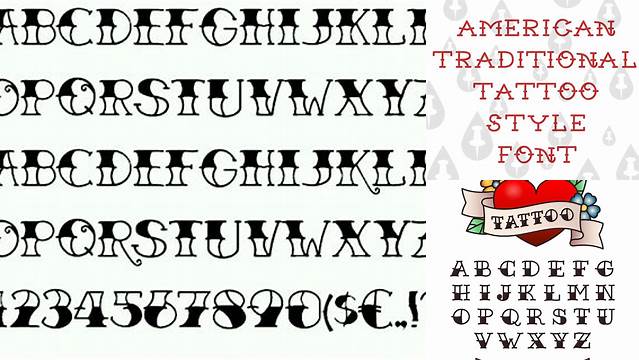
Free American Traditional Tattoo Font Generator
Are you on the hunt for the perfect American Traditional tattoo font generator free of charge? Look no further! In this comprehensive guide, we'll explore everything you need to know about American Traditional tattoo fonts, how to find them, and how to use them to create stunning designs. Whether you're a tattoo artist looking for inspiration or someone planning their first tattoo, understanding the nuances of this classic style is crucial.
What is American Traditional Tattoo Font?
American Traditional tattoo fonts, often referred to as classic tattoo fonts, are characterized by their bold lines, clean readability, and timeless appeal. Rooted in the early 20th-century American tattooing style, these fonts were designed for clarity and longevity. Think of iconic tattoo artists like Sailor Jerry, whose work heavily influenced the aesthetics we associate with this style today. These fonts are more than just lettering; they're a statement. They evoke a sense of history, resilience, and a no-nonsense attitude. The simplicity in their design ensures they age well, remaining legible even as the ink settles and the skin changes over time. This enduring quality is a key reason why American Traditional fonts continue to be a popular choice in tattoo parlors worldwide. When choosing a font, consider its weight and spacing, as these factors significantly impact the overall look and feel of your tattoo. A well-chosen font can enhance the impact of your design, while a poorly chosen one can detract from it. Also, bear in mind the placement of the tattoo on your body. Certain fonts may work better on larger areas like the back or chest, while others are more suitable for smaller areas like the wrist or ankle. Experiment with different font styles and sizes to find the perfect match for your vision. Remember, a tattoo is a permanent commitment, so it's essential to get it right. Take your time, do your research, and consult with your tattoo artist to ensure you're making the best possible choice. Ultimately, the goal is to create a tattoo that you'll be proud to wear for years to come.
Key Characteristics of American Traditional Fonts
When diving into the world of American Traditional tattoo fonts, it’s essential to recognize the key characteristics that define them. Typically, these fonts feature strong, clean lines that ensure readability and longevity. Boldness is a signature element, making the lettering stand out and resist fading over time. You'll often find these fonts using a limited color palette, primarily black, red, and occasionally green or yellow, further emphasizing their bold nature. Another defining trait is the simplicity of the letterforms. Unlike more ornate or decorative fonts, American Traditional fonts prioritize clarity and directness. This simplicity allows the lettering to be easily understood, even from a distance, which is crucial for tattoos that need to make a statement. Furthermore, spacing is carefully considered in these fonts. The letters are typically spaced generously to prevent them from blurring together as the tattoo ages. This attention to detail ensures that the tattoo remains legible and visually appealing for years to come. In addition to these fundamental characteristics, American Traditional fonts often incorporate subtle design elements that add to their overall aesthetic. These can include slight serifs, rounded edges, or decorative flourishes that enhance the visual appeal of the lettering without compromising its readability. The specific design elements used can vary depending on the font and the artist's personal style, but they all contribute to the unique character of American Traditional fonts. Understanding these key characteristics is essential for anyone looking to incorporate American Traditional lettering into their tattoo design. By appreciating the boldness, simplicity, and attention to detail that define these fonts, you can ensure that your tattoo is both visually striking and timeless. Whether you're choosing a font for a name, a quote, or a meaningful symbol, American Traditional fonts offer a classic and enduring option that will stand the test of time. Remember to consult with your tattoo artist to discuss your options and ensure that the font you choose is appropriate for your design and placement.
Where to Find Free American Traditional Tattoo Font Generators
Finding a reliable American Traditional tattoo font generator free of charge might seem daunting, but numerous resources are available online. Start by exploring websites dedicated to free fonts. Many of these sites offer a variety of tattoo-inspired fonts, including those in the American Traditional style. Some popular options include DaFont, FontSpace, and Google Fonts. While Google Fonts might not be specifically geared towards tattoo fonts, it has some display fonts that might work for an American traditional style. When browsing these sites, be sure to filter your search using keywords like "tattoo," "traditional," or "vintage" to narrow down your options. Additionally, keep an eye out for fonts that are specifically labeled as being suitable for tattoo designs. Another great resource for finding free American Traditional tattoo fonts is online design communities and forums. These platforms often feature user-submitted fonts that are free to download and use. Websites like Behance and Dribbble can be excellent sources of inspiration and may lead you to discover unique and high-quality fonts that you won't find anywhere else. Furthermore, consider checking out online tattoo forums and social media groups dedicated to tattoo art. These communities often share resources and recommendations for free fonts, as well as tips and advice on how to use them in your designs. When downloading fonts from free sources, it's essential to be mindful of licensing restrictions. Always check the font's license to ensure that you're allowed to use it for your intended purpose, whether it's for personal or commercial use. Some fonts may be free for personal use only, while others may require you to purchase a license if you plan to use them for commercial projects. By taking the time to understand the licensing terms, you can avoid any potential legal issues down the road. In addition to downloading fonts from free sources, you can also try using online font generators to create your own custom American Traditional tattoo fonts. These generators allow you to input text and customize various aspects of the font, such as its size, weight, and style. While the results may not be as polished as professionally designed fonts, they can be a great option if you're looking for something unique and personalized. Experiment with different font generators to see which one works best for you, and don't be afraid to get creative with your designs.
How to Use an American Traditional Tattoo Font Generator
So, you've found an American Traditional tattoo font generator – now what? Using these tools is generally straightforward. First, input the text you want to see rendered in the American Traditional style. This could be a name, a quote, or any other meaningful word or phrase. Next, explore the customization options offered by the generator. Most generators allow you to adjust the font size, letter spacing, and sometimes even the stroke weight. Experiment with different settings to find the perfect look for your tattoo design. Once you're satisfied with the preview, download the font file. It's usually available in a common format like TTF or OTF. After downloading the font, install it on your computer. This process typically involves double-clicking the font file and following the on-screen instructions. Once the font is installed, you can use it in any design software that supports custom fonts, such as Adobe Photoshop, Illustrator, or even Microsoft Word. Create a new document in your design software and select the American Traditional font you just installed. Type in your desired text and adjust the size and placement to match your tattoo design. If you're working with a tattoo artist, you can share the design file with them so they can accurately replicate the font on your skin. Alternatively, you can print out the design and bring it to your tattoo appointment. Before finalizing your tattoo design, it's always a good idea to test it out on a temporary tattoo or a piece of paper. This will give you a better sense of how the font will look on your skin and allow you to make any necessary adjustments. Pay attention to the size and placement of the tattoo, as well as the overall balance of the design. Remember, a tattoo is a permanent commitment, so it's essential to get it right. Take your time, experiment with different options, and consult with your tattoo artist to ensure that you're making the best possible choice. By following these steps, you can use an American Traditional tattoo font generator to create a stunning and personalized tattoo design that you'll be proud to wear for years to come. And remember, while these generators can be a great starting point, it's always a good idea to work with a professional tattoo artist to ensure that your design is executed flawlessly.
Choosing the right American Traditional tattoo font is crucial for achieving the desired aesthetic and ensuring the longevity of your tattoo. Start by considering the overall design of your tattoo. The font should complement the other elements of the design, such as images or symbols. If you're incorporating a traditional American Traditional eagle or rose, for example, choose a font that reflects the same classic and bold style. Think about the size and placement of your tattoo. Larger tattoos can accommodate more intricate fonts, while smaller tattoos require simpler, more legible fonts. Avoid fonts with overly thin lines or complex details, as these may blur or fade over time. Consider the readability of the font. Choose a font that is easy to read, even from a distance. Avoid fonts with overly stylized or decorative letterforms, as these can be difficult to decipher. Test the font out on a temporary tattoo or a piece of paper before committing to the design. This will give you a better sense of how the font will look on your skin and allow you to make any necessary adjustments. Pay attention to the spacing between the letters. The letters should be evenly spaced and not too close together or too far apart. Insufficient spacing can make the letters appear crowded and difficult to read, while excessive spacing can make the tattoo look disjointed. Consider the weight of the font. The weight of the font refers to the thickness of the lines. Choose a font weight that is appropriate for your skin type and the overall design of your tattoo. Lighter skin tones can generally handle thinner fonts, while darker skin tones may require bolder fonts for optimal visibility. Get input from your tattoo artist. Your tattoo artist can provide valuable guidance and advice on choosing the right font for your tattoo. They have experience working with different fonts and can help you select a font that is both aesthetically pleasing and technically sound. Remember, a tattoo is a permanent commitment, so it's essential to take the time to choose the right font. By considering these tips, you can ensure that your tattoo is both visually striking and timeless. Don't be afraid to experiment with different options and consult with your tattoo artist to find the perfect font for your unique design. With careful planning and attention to detail, you can create a tattoo that you'll be proud to wear for years to come.
Finding the perfect American Traditional tattoo font generator free is totally doable with the right resources and a bit of research. By understanding the characteristics of these fonts, exploring online resources, and following our tips, you can create a tattoo design that's both timeless and personal. Remember to prioritize readability, consider the overall design, and always consult with your tattoo artist. Happy designing, and may your ink stay bold!